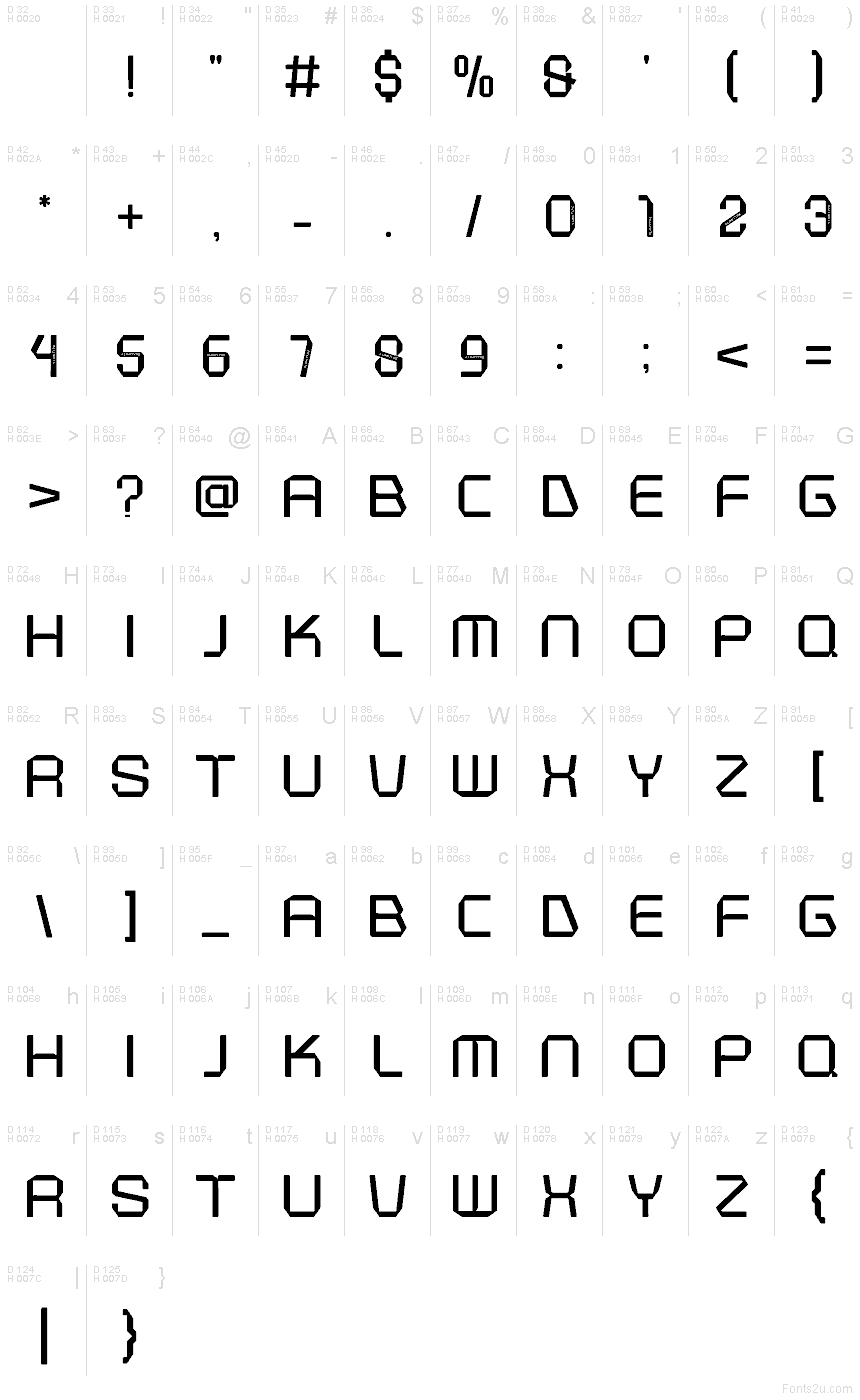
Universa DEMO
Universa font by Limitype is a digital display typeface featuring a futuristic, modern style. Its expanded width combined with geometric and angular contours gives designs a distinctive technical and minimalist look. Heavily inspired by digital time display, this font has everything to help your project stand out.